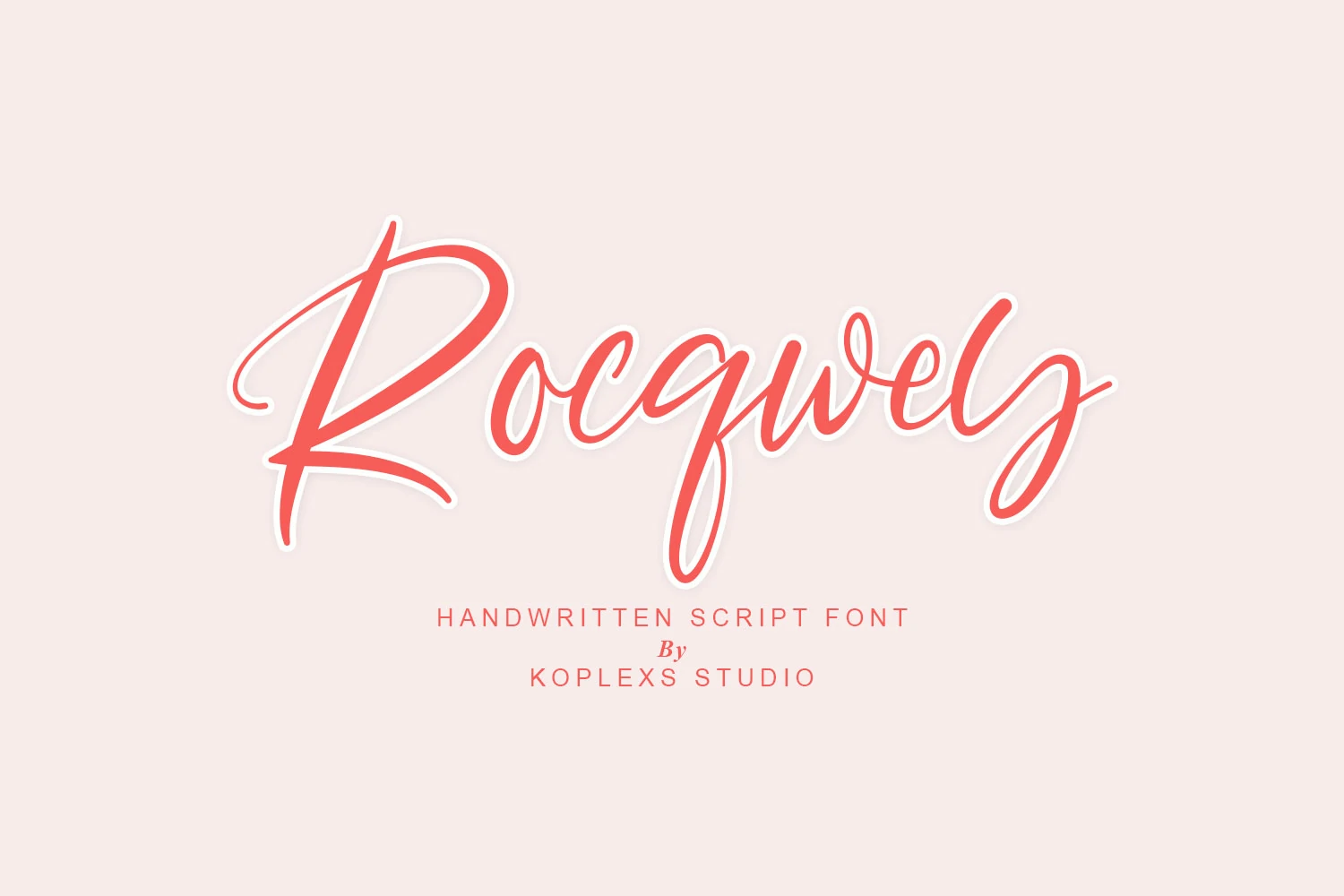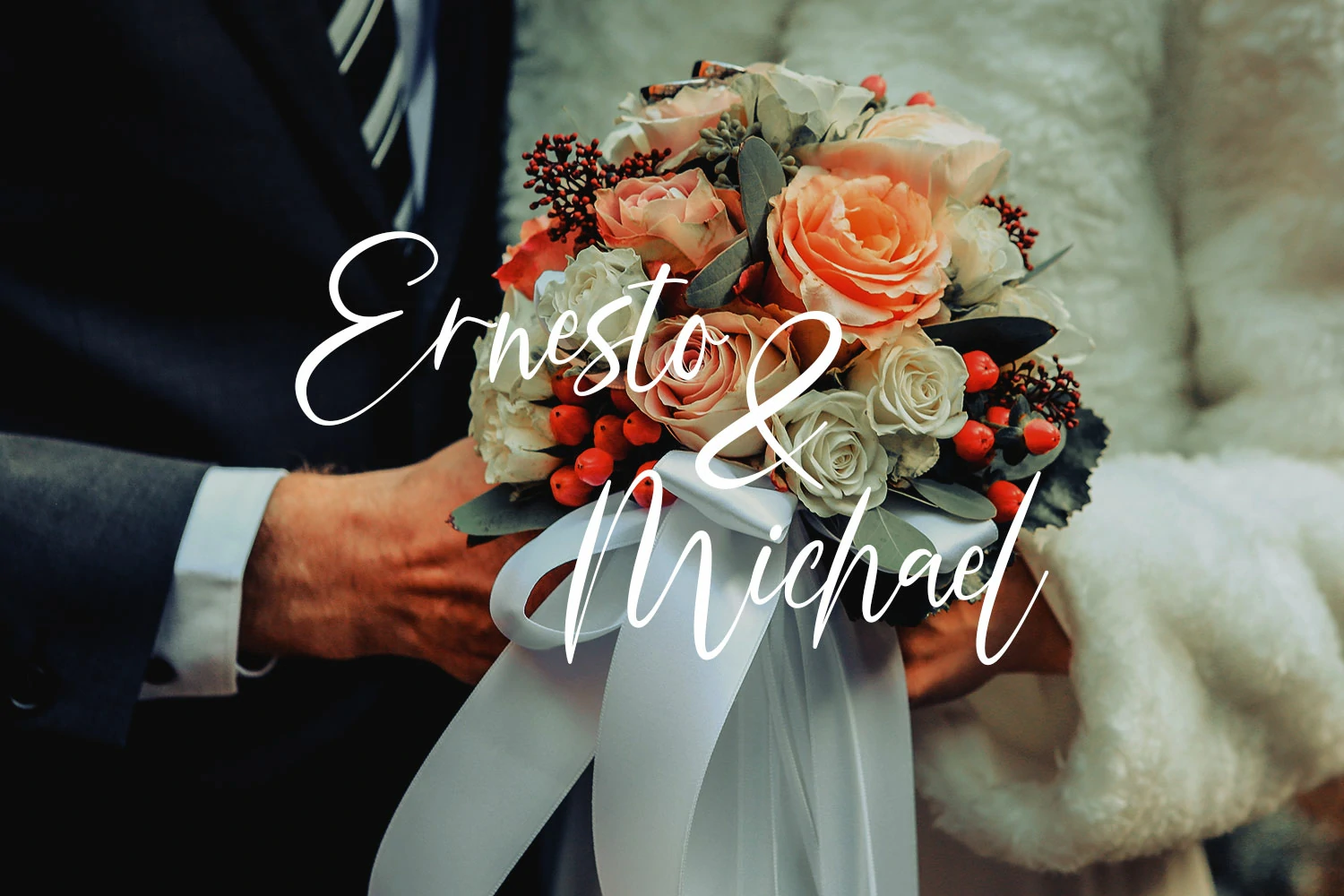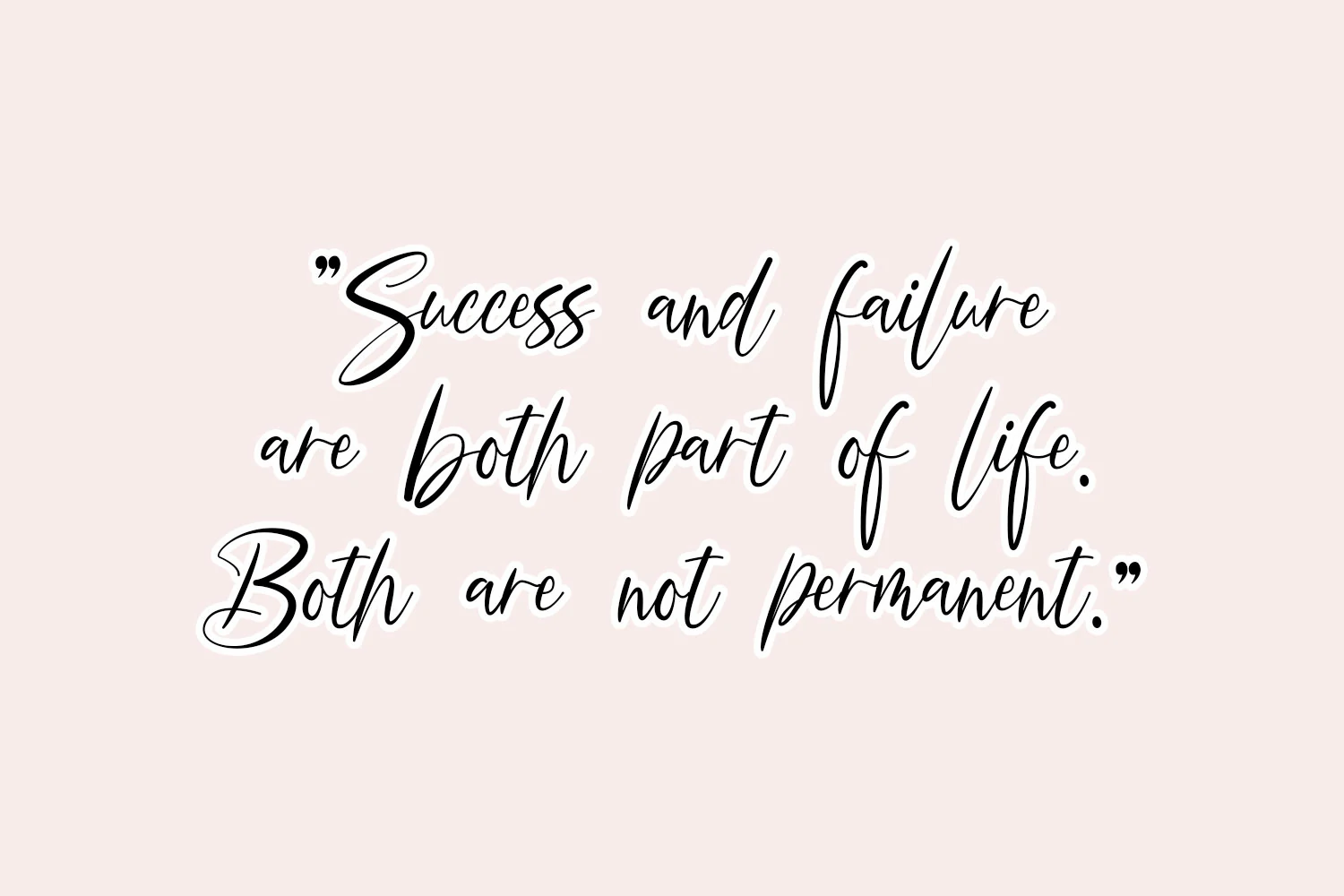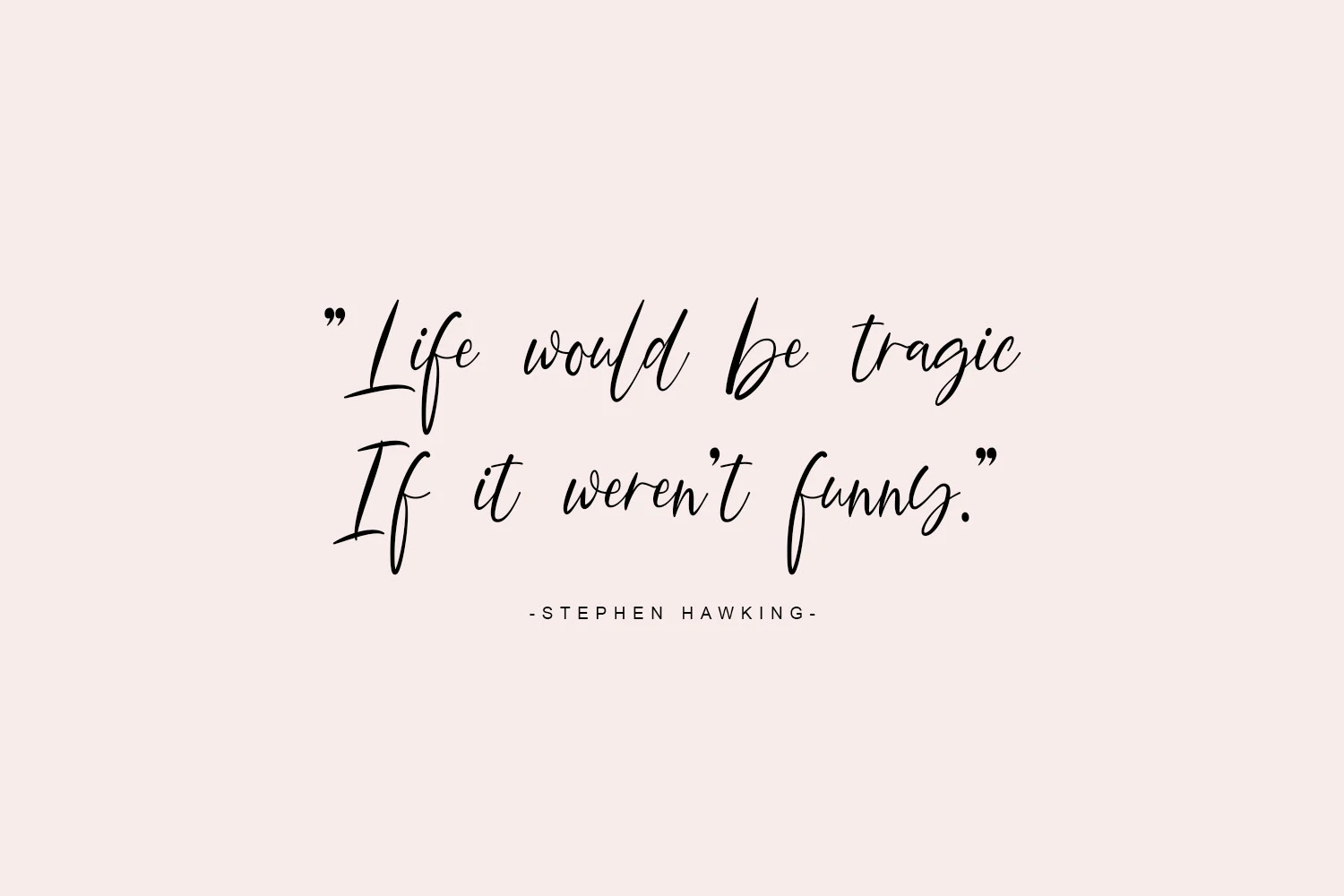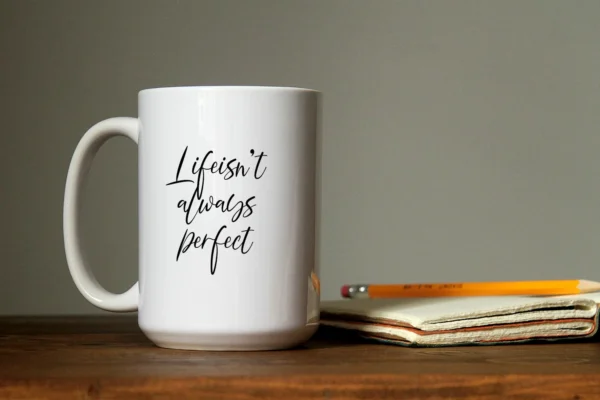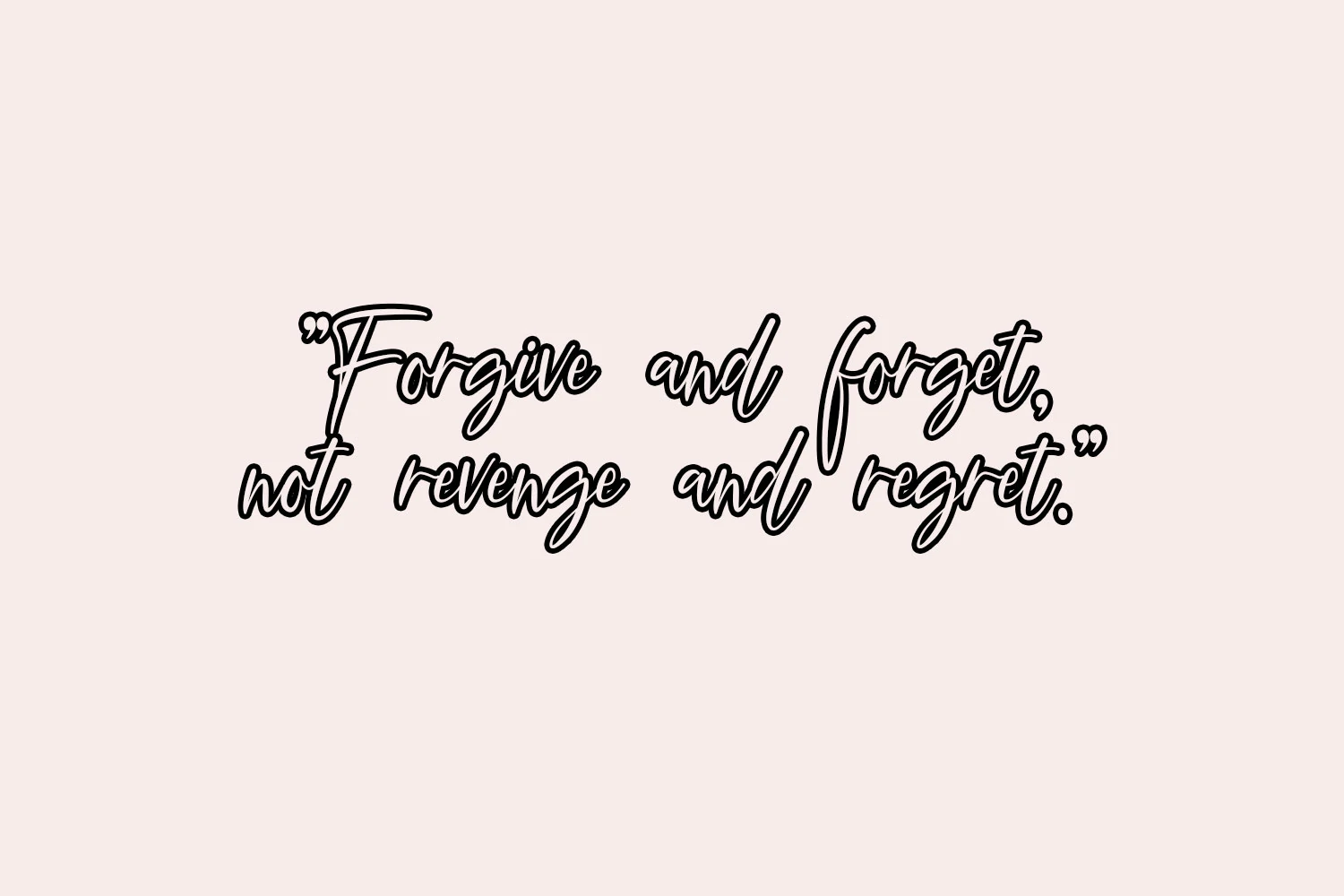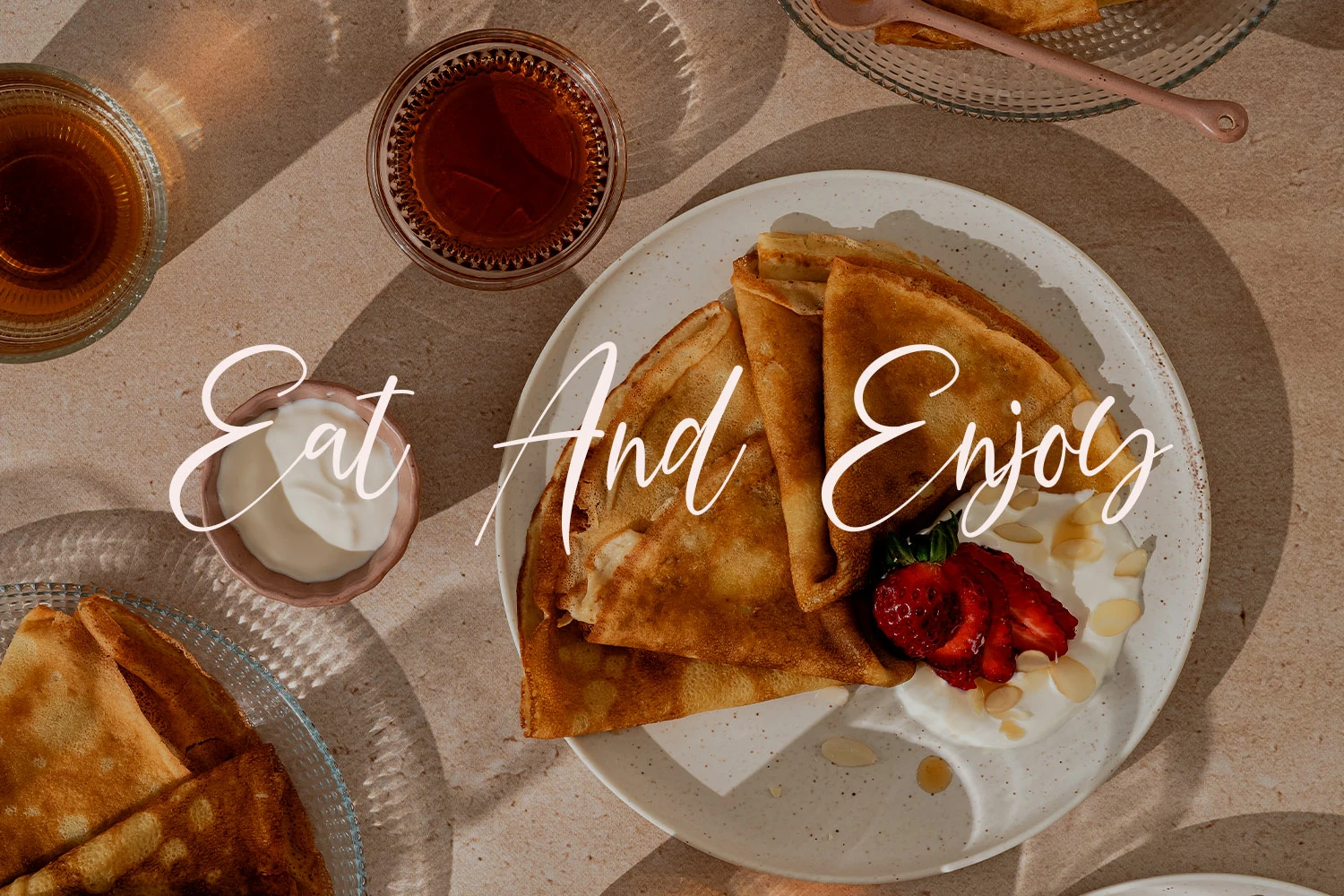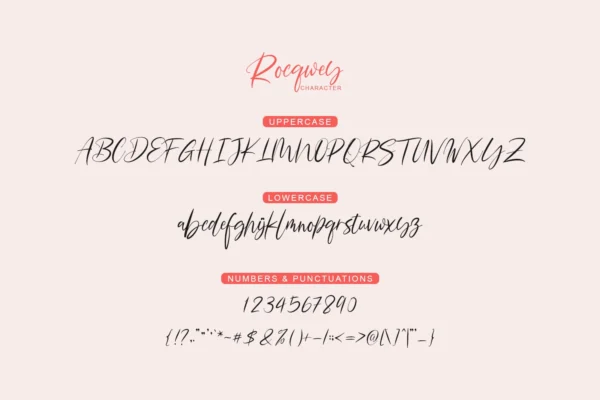
Rocqwey Font
Rocqwey Script Font – A fun yet elegant handwritten font perfect for logos, invitations, and social media. Comes in TTF, OTF, WOFF with cool alternates & ligatures. Signature style? Check. Calligraphy vibes? Double check.
Rocqwey Script Font: The Perfect Blend of Elegance and Playfulness!
Hey there, fellow typography lovers! 🎨✨ Introducing Rocqwey Script Font , the ultimate handwritten script font that’s as charming as it is versatile. Whether you’re designing wedding invitations, creating logos, or crafting eye-catching social media graphics, Rocqwey has got your back!
What Makes Rocqwey Font Special?
• Handwritten Charm : Rocqwey is a true handwritten script font, giving your designs that personal, handcrafted touch. It’s perfect for anything that needs a bit of warmth and personality.
• Signature Style : Think of it as your digital signature—elegant, fluid, and totally unique. Use it to add a touch of sophistication to your projects.
• Calligraphy Vibes : With its graceful strokes and flowing lines, Rocqwey captures the essence of classic calligraphy but in a modern, accessible way.
Key Features That’ll Make You Smile
• Alternate Characters : Got a hankering for variety? Rocqwey comes packed with alternate characters, so you can mix and match to create truly one-of-a-kind designs.
• Ligatures : These little connectors between letters make your text look even more cohesive and stylish. They’re like secret shortcuts to elegance!
Rocqwey Font Perfect for…
• Wedding Invitations : Add a touch of romance and charm to your big day invites.
• Logos and Branding : Give your brand an elegant, sophisticated edge.
• Social Media Graphics : Stand out on Instagram, Facebook, or TikTok with stunning, handcrafted text.
• Letterhead and Stationery : Elevate your correspondence with a personal, handwritten feel.
Why Choose Rocqwey Font?
• Ease of Use : Rocqwey is designed to be user-friendly, whether you’re a seasoned designer or just starting out.
• Versatility : From formal documents to playful posters, Rocqwey adapts beautifully to any style.
• Unique Alternatives : With its array of alternate characters and ligatures, Rocqwey ensures your designs never get boring.
Get Creative!
Whether you’re crafting a heartfelt message or designing a bold logo, Rocqwey is here to help you bring your ideas to life. Its fluidity and elegance make it a must-have for anyone who loves typography with a personal touch.